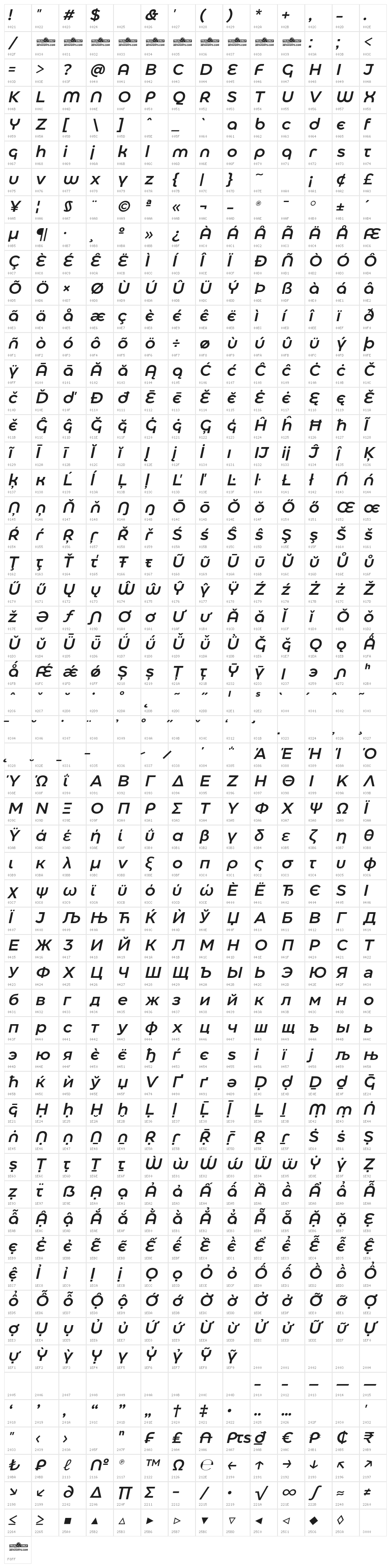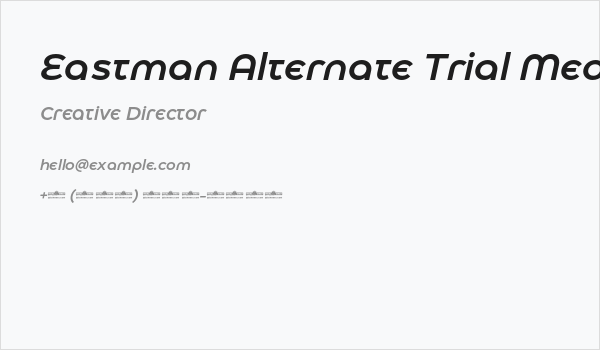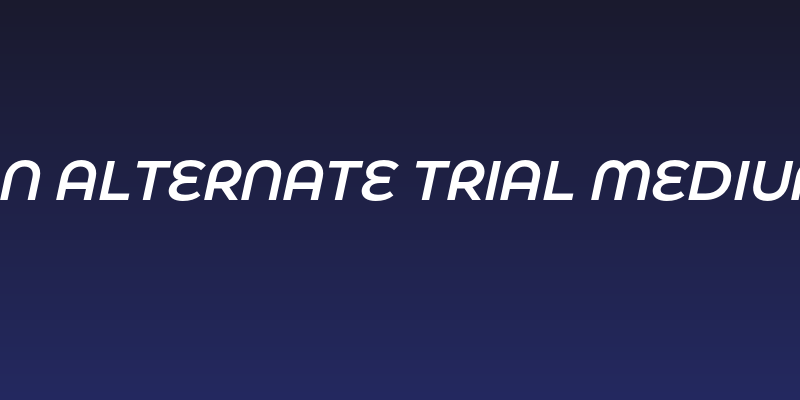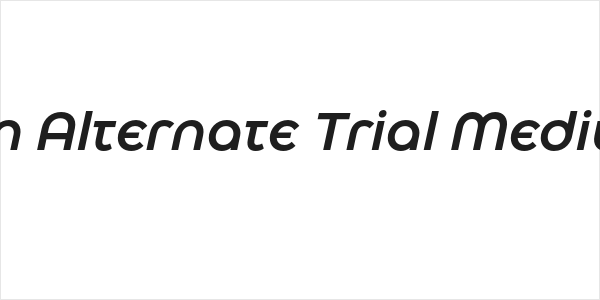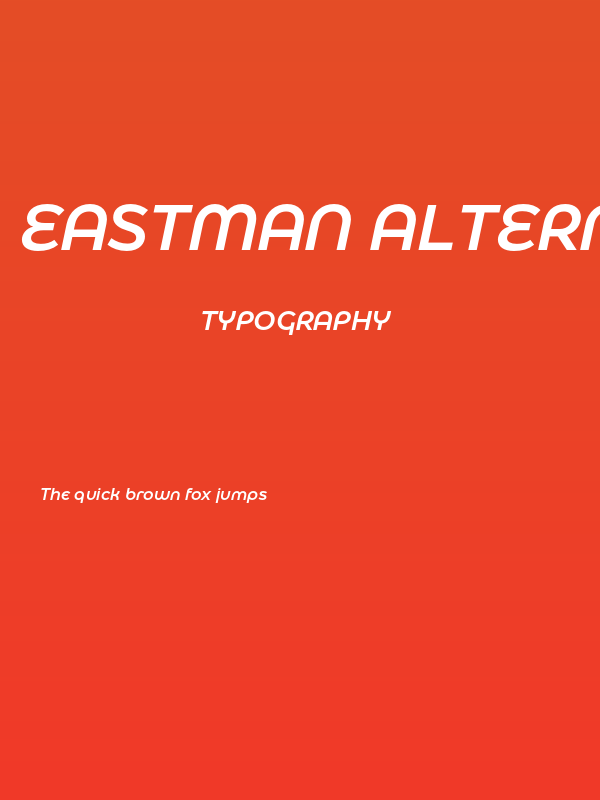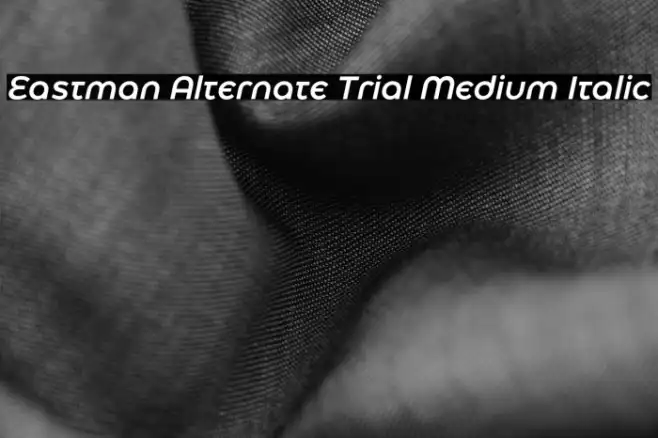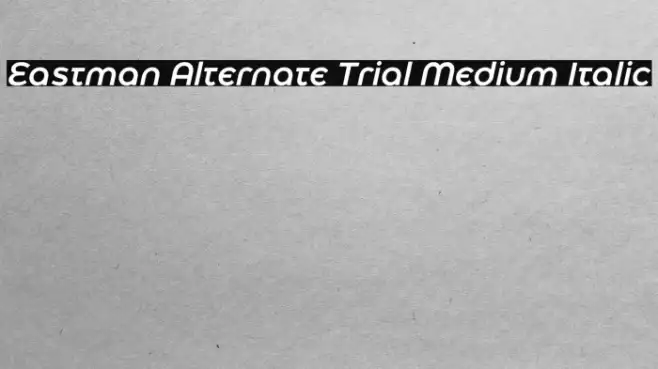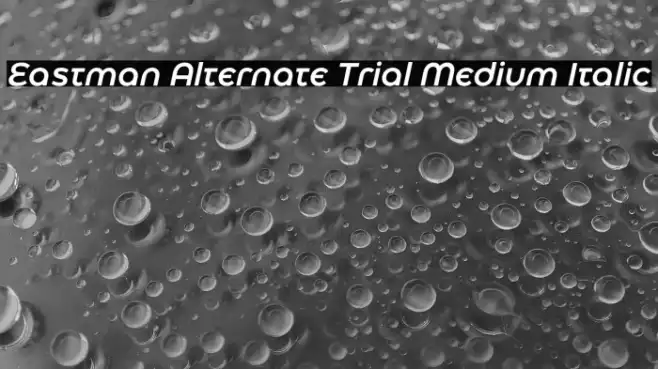
Eastman Alternate Trial Medium Italic Font
Eastman Alternate Trial Medium Italic Description
This font features a sleek, modern design with a slight italic slant, giving it a dynamic and forward-moving appearance. The characters are well-proportioned with a consistent stroke width, contributing to a clean and professional look. The uppercase letters are bold and assertive, while the lowercase letters maintain a friendly and approachable style. The numerals and special characters are designed to match the overall aesthetic, ensuring uniformity across all text. This font is versatile, suitable for both digital and print media, and can be used to convey a sense of innovation and modernity.